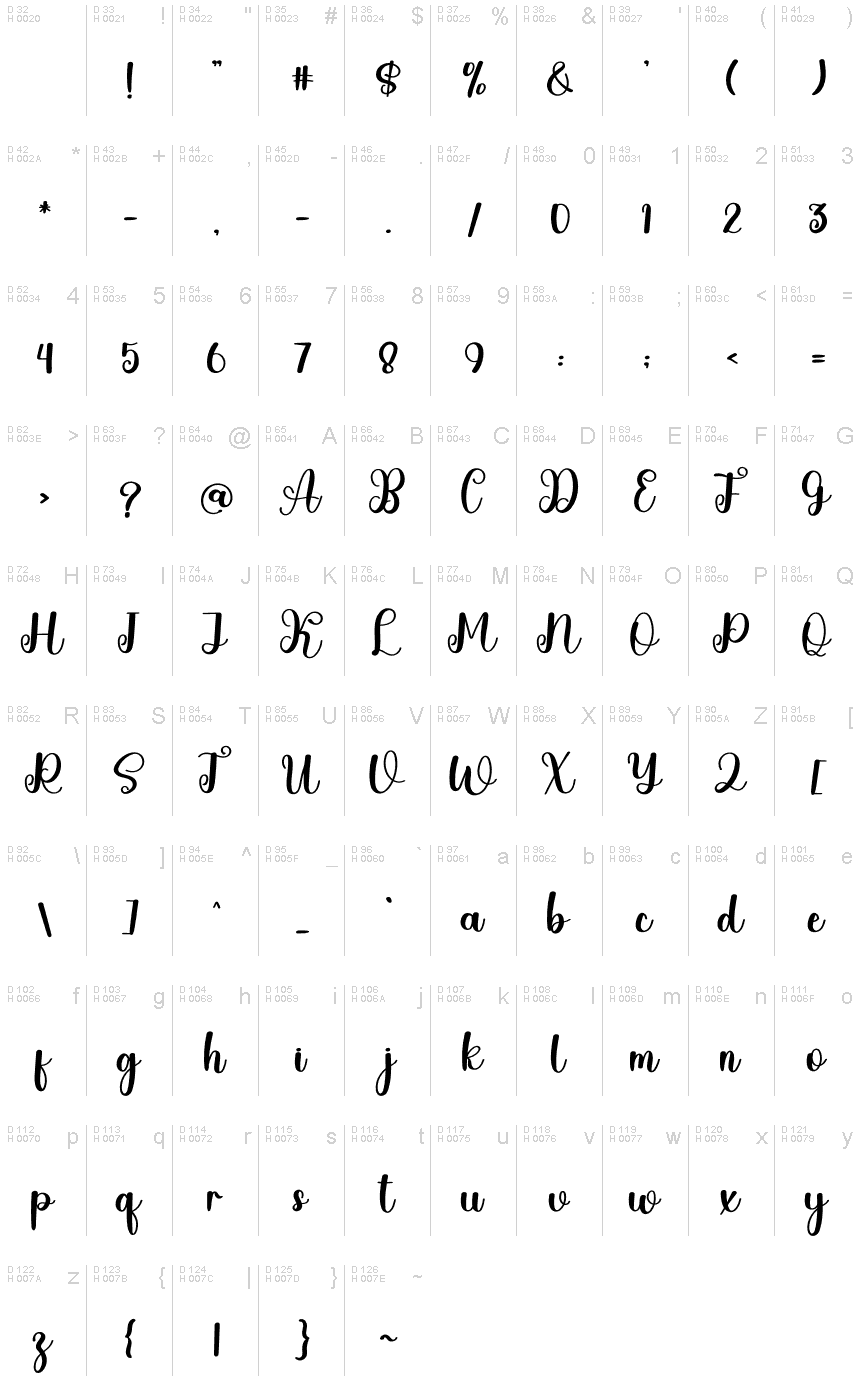
Hi Christmas
Hi Christmas is a charming semi-light calligraphy font created by FreshtypeINK. With its elegant curves and graceful strokes, this font adds a touch of sophistication to any project. Perfect for holiday invitations, greeting cards, or festive branding, Hi Christmas brings a sense of joy and warmth to your designs. Whether you're crafting a whimsical poster or designing a delightful logo, this versatile font will surely make your creations stand out. Let Hi Christmas be the magical touch that brings the spirit of the season to life in your next creative endeavor.